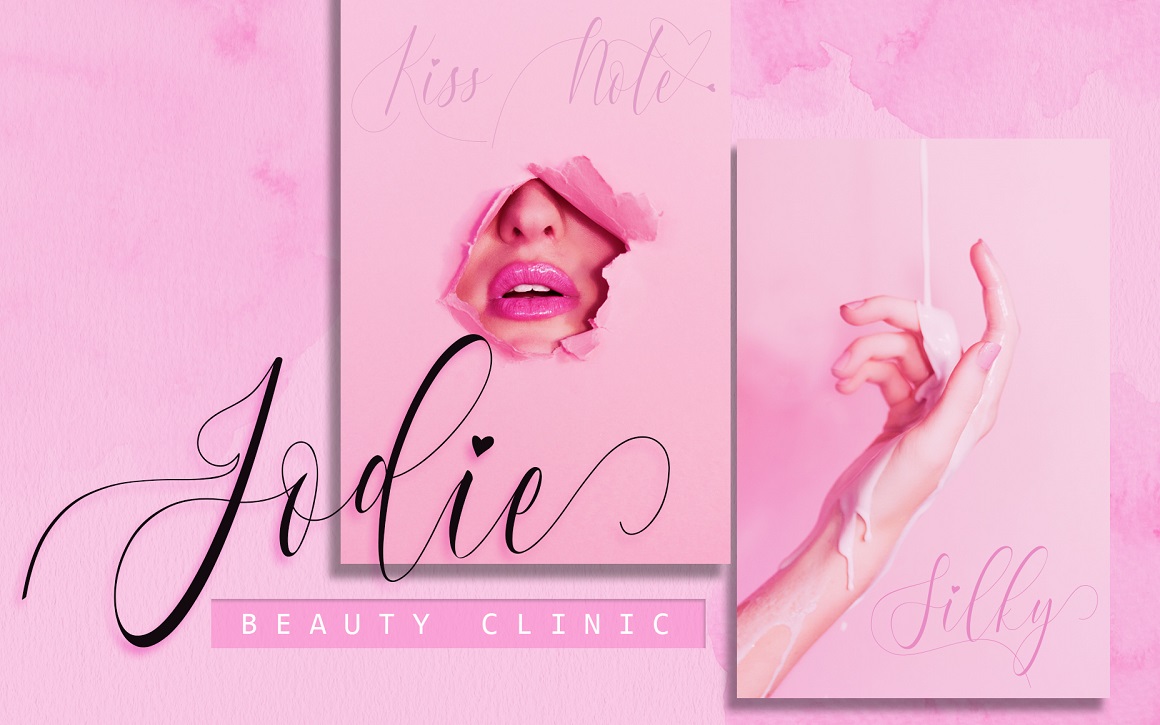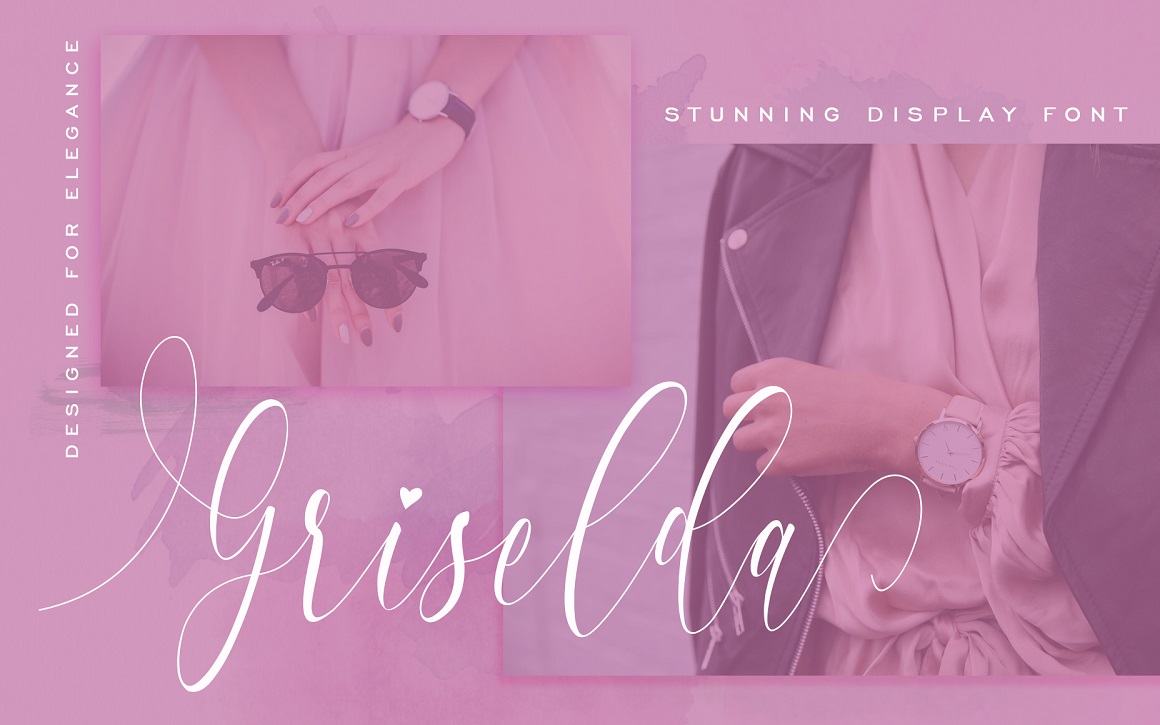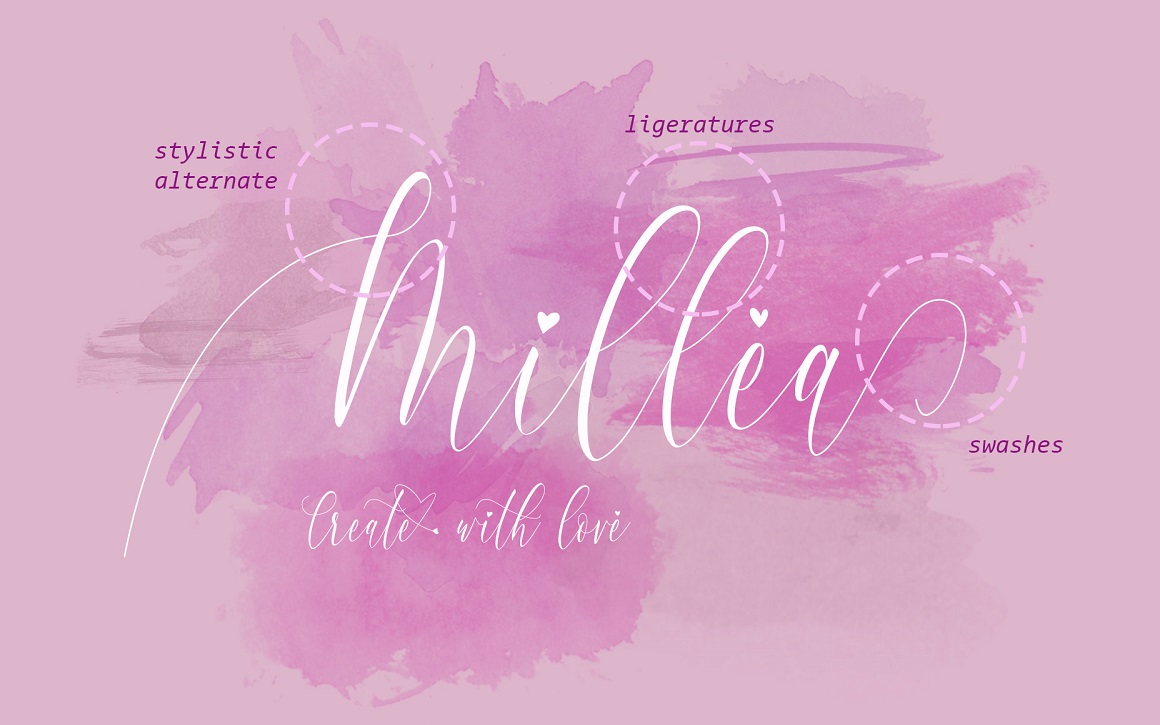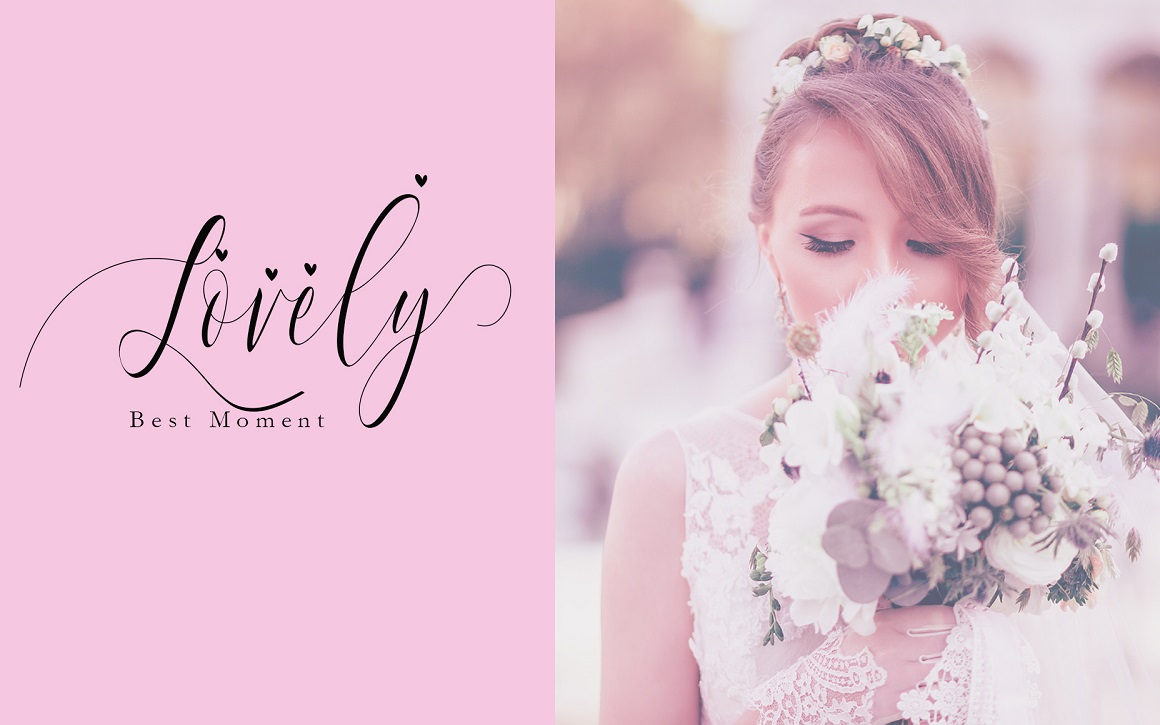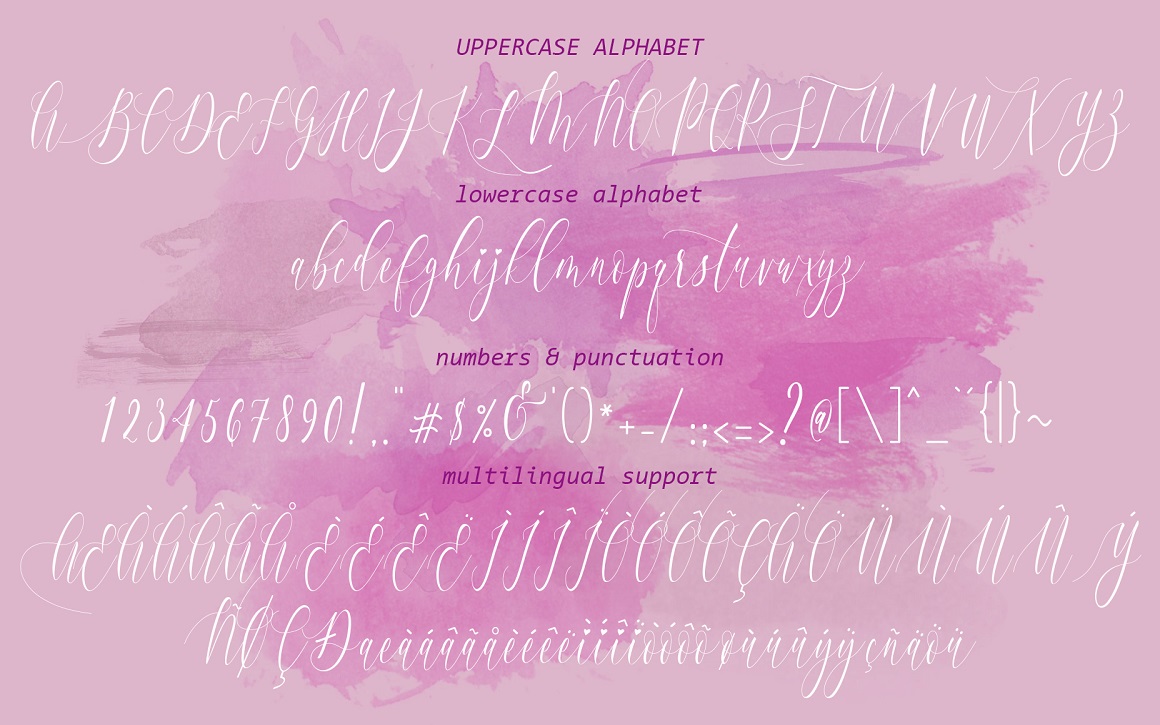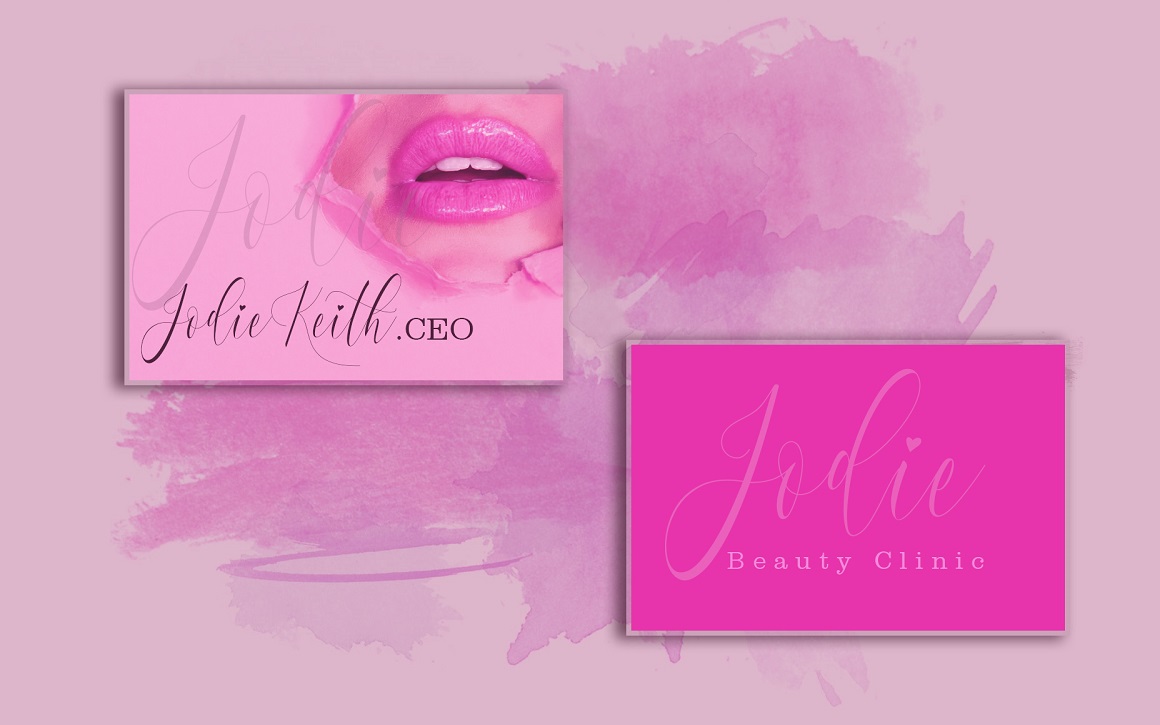
Introducing Charlotte Calligraphy Font: Elevate Your Designs with Elegance
Are you searching for a font that exudes romance and sophistication? Look no further than the Charlotte Calligraphy Font. This stunning typeface is perfect for designers and crafters who want to add a touch of elegance to their projects. With its modern calligraphy script, Charlotte Calligraphy is sure to impress.
The Beauty of Charlotte Calligraphy
Charlotte Calligraphy is an elegant font that boasts a romantic appeal. Its flowing lines and delicate curves make it perfect for a variety of design applications, from wedding invitations and stationery to branding and advertising. This font is designed to evoke a sense of luxury and sophistication, making it ideal for high-end designs.
Key Features of Charlotte Calligraphy Font
- Elegant and Modern Design: Charlotte Calligraphy features a modern calligraphy script that is both elegant and sophisticated.
- Romantic Appeal: The font’s flowing lines and delicate curves give it a romantic appeal that is perfect for wedding invitations, Valentine’s Day designs, and other romantic-themed projects.
- Highly Versatile: Charlotte Calligraphy can be used for a variety of design applications, from print to digital.
- Easy to Read: Despite its elegant design, Charlotte Calligraphy is easy to read, making it perfect for body text and headlines.
Why Choose Charlotte Calligraphy Font?
There are many calligraphy fonts available, but Charlotte Calligraphy stands out from the rest. Here are just a few reasons why:
- Unique Design: Charlotte Calligraphy features a unique design that sets it apart from other calligraphy fonts.
- High-Quality: This font is designed with high-quality craftsmanship, ensuring that it looks great in any design application.
Using Charlotte Calligraphy Font in Your Designs
Charlotte Calligraphy is a versatile font that can be used in a variety of design applications. Here are a few ideas to get you started:
- Wedding Invitations: Use Charlotte Calligraphy to create beautiful wedding invitations that set the tone for a romantic and elegant wedding.
- Branding and Advertising: This font is perfect for luxury brands that want to evoke a sense of sophistication and elegance.
- Stationery and Paper Crafts: Add a touch of elegance to your stationery and paper crafts with Charlotte Calligraphy.
Tips for Working with Charlotte Calligraphy Font
Here are a few tips for working with Charlotte Calligraphy:
- Use it Sparingly: Because of its elegant design, Charlotte Calligraphy is best used sparingly. Use it for headlines and titles, and pair it with a simpler font for body text.
- Experiment with Colors: This font looks great in a variety of colors, from classic black and white to bold and bright hues.
- Pay Attention to Kerning: Make sure to pay attention to kerning when using Charlotte Calligraphy. This will ensure that your text looks elegant and sophisticated.
Charlotte Calligraphy Font is a stunning typeface that is perfect for designers and crafters who want to add a touch of elegance to their projects. With its modern calligraphy script and romantic appeal, this font is sure to impress. Whether you’re creating wedding invitations, branding and advertising materials, or stationery and paper crafts, Charlotte Calligraphy is a great choice.